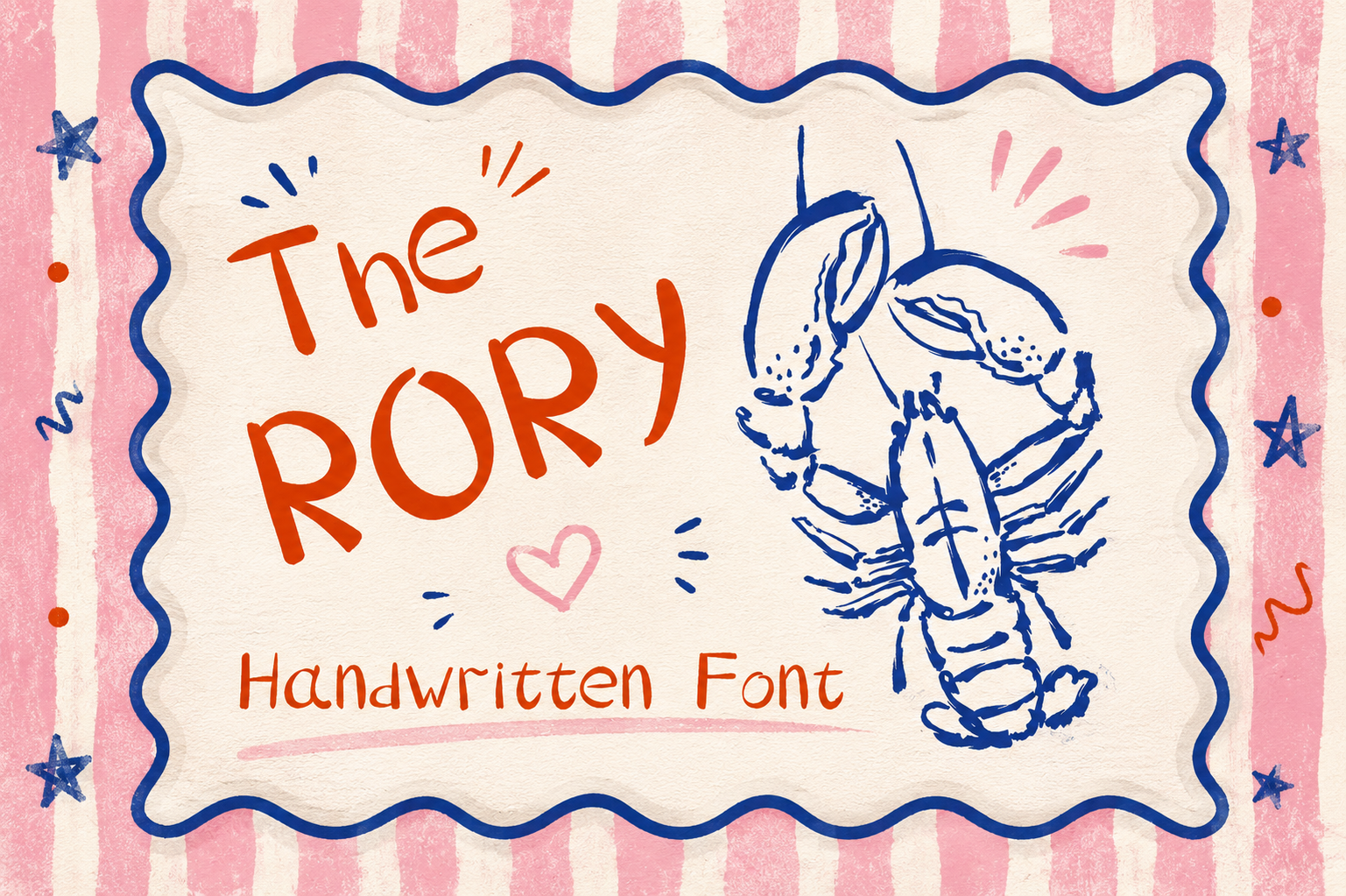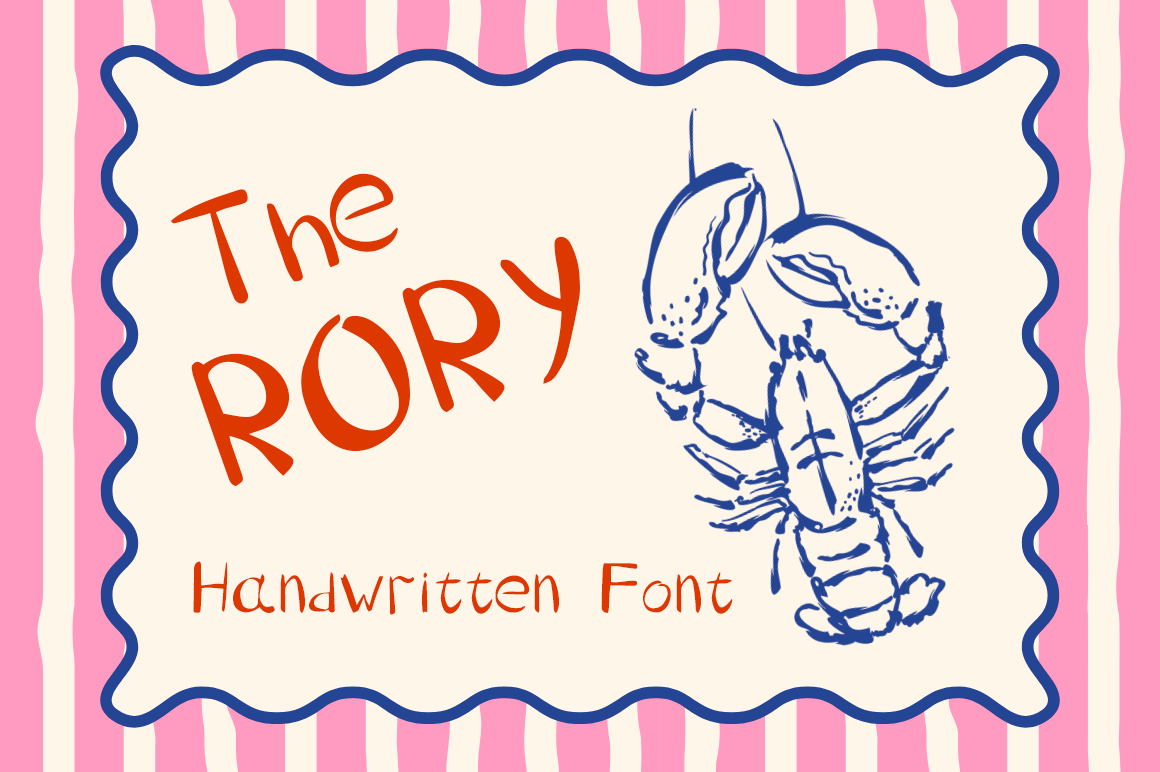
Rory Handwritten Font
Want to add a touch of quirky personality to your designs? Look no further than Rory, a handwritten font bursting with character! Inspired by lazy afternoons and seaside adventures, Rory’s playful curves and slightly uneven strokes give it a unique, hand-crafted feel. Perfect for projects that need a touch of warmth and individuality.